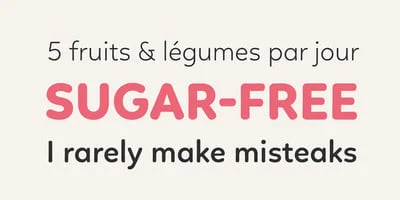
Linotte Font
Linotte Font is perfect for bird watching guides, nature photography portfolios, outdoor education materials, wildlife conservation campaigns, ornithology publications, eco-tourism branding, forest preserve signage, environmental awareness projects, nature center displays, and birding equipment marketing.
What makes Linotte Font exciting is its delicate grace and songbird elegance that captures the essence of small woodland birds with their cheerful melodies and gentle beauty. This charming typeface embodies the spirit of the European linnet with its light character forms and melodic proportions that seem to flutter across the page like tiny birds dancing through morning sunlight. The font's avian personality creates an immediate connection to nature's most delightful songsters and the peaceful tranquility of woodland environments.
Linotte Font family includes regular weight with gracefully crafted character designs featuring bird-like curves and songbird proportions. The typeface maintains excellent readability while showcasing its distinctive ornithological personality through delicately designed letterforms that seem to sing with the gentle rhythm of woodland birds greeting the dawn with joyful melodies.
Nature enthusiasts consistently choose Linotte Font for projects requiring authentic wildlife appeal and natural elegance. This remarkable typeface brings the charm of songbirds to brand communications, combining avian grace with environmental consciousness to create harmonious experiences that celebrate nature's music. The thoughtfully designed characters ensure melodic visual impact across all applications, making it essential for wildlife organizations, nature centers, and any institution seeking to communicate the gentle beauty and uplifting spirit that comes from connecting with nature's smallest and most musical creatures through Linotte Font.